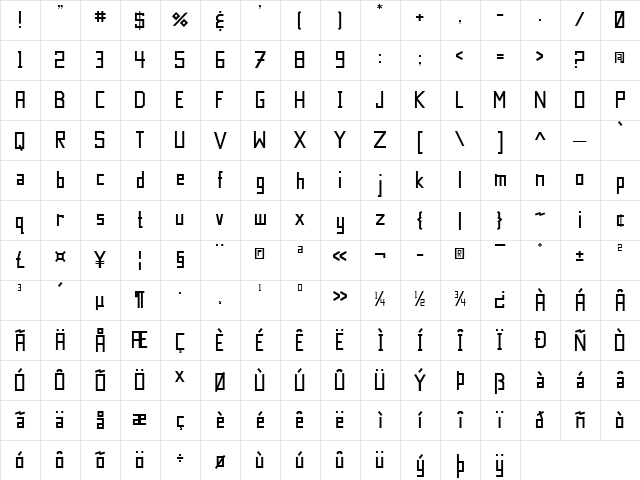
JI Lilliwaup Font Preview
JI Lilliwaup JI Lilliwaup
JI Lilliwaup Font Details
| Style | JI Lilliwaup |
| Designer | Jeri Ingalls |
Design Context for JI Lilliwaup Typeface
JI Lilliwaup is a composed and adaptable typeface that performs quietly and consistently across a wide range of design contexts.